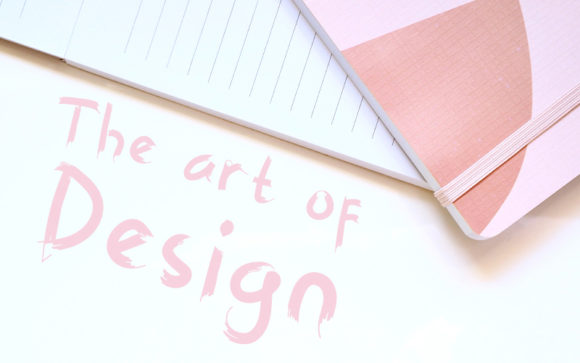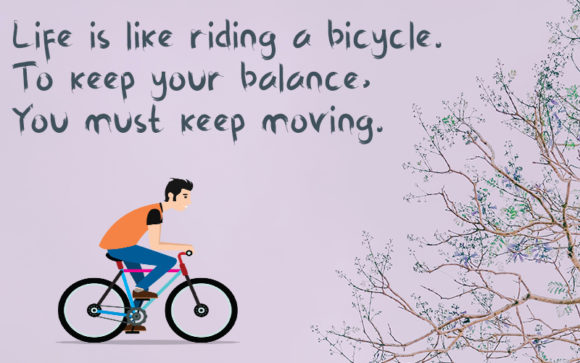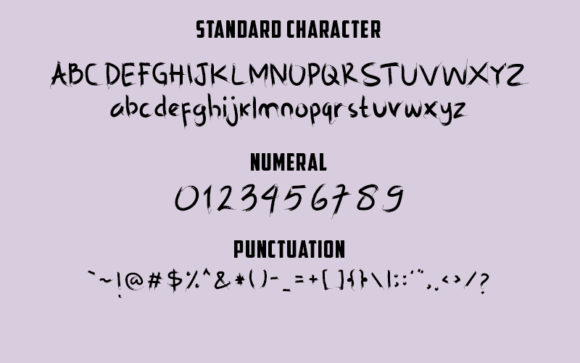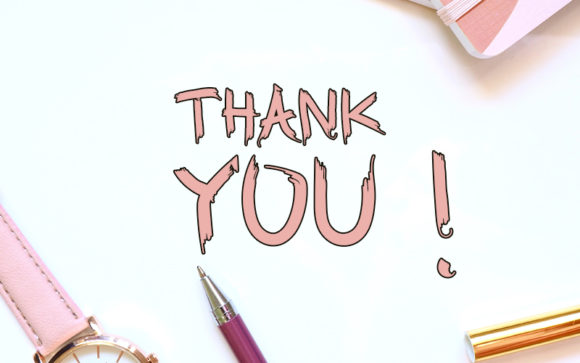
Hanabara Font
About Hanabara Font
Hanabara is a cute and casual handwritten font with an incredibly friendly feel. Whether you’re looking for fonts for Instagram or calligraphy scripts for DIY projects, this font will turn any creative idea into a true piece of art!